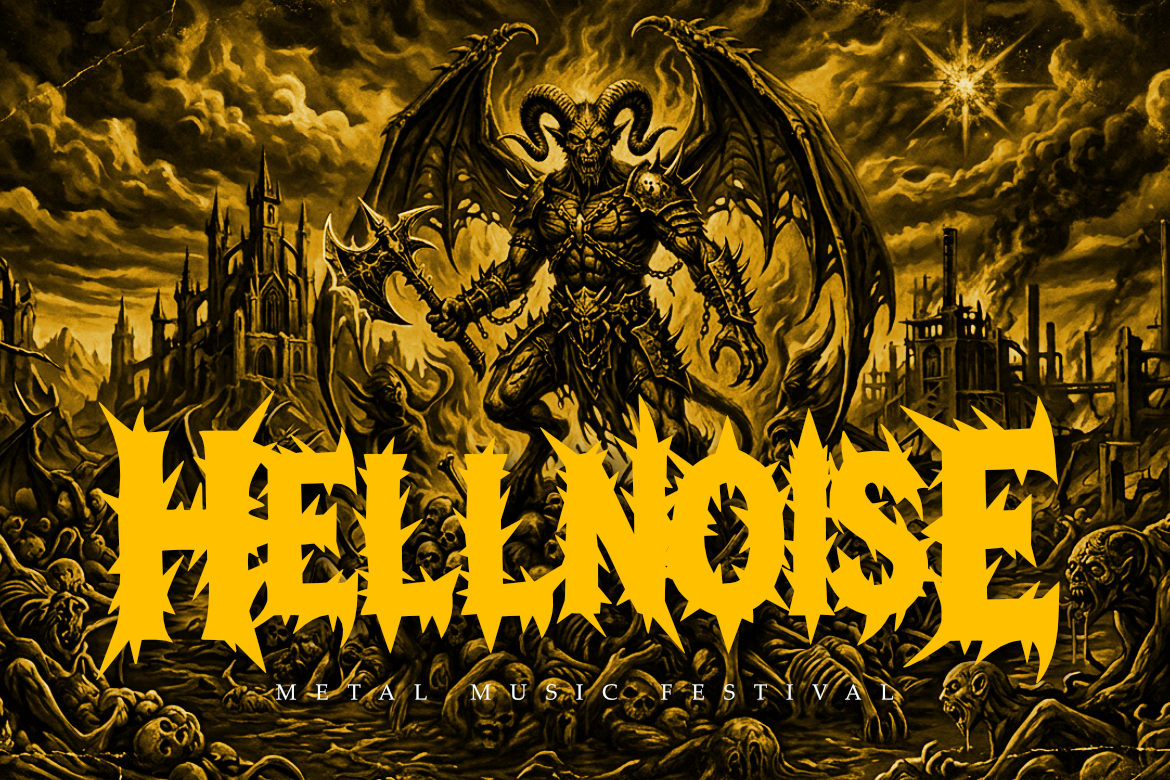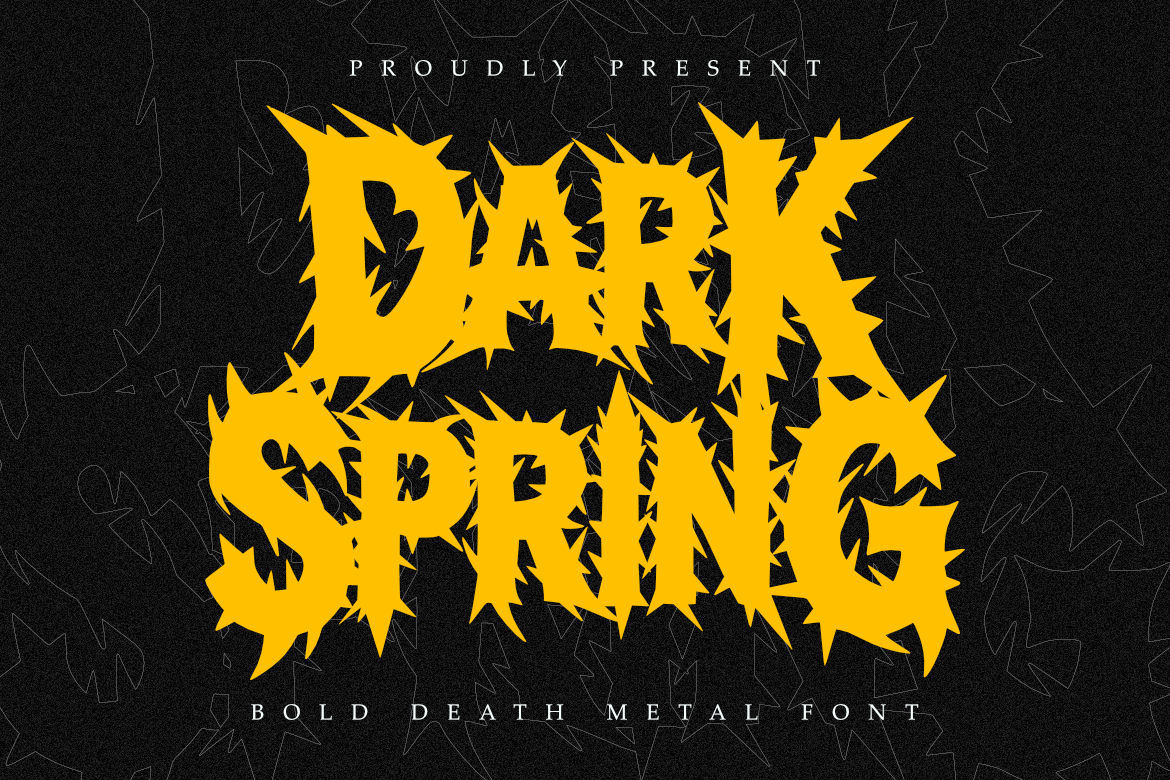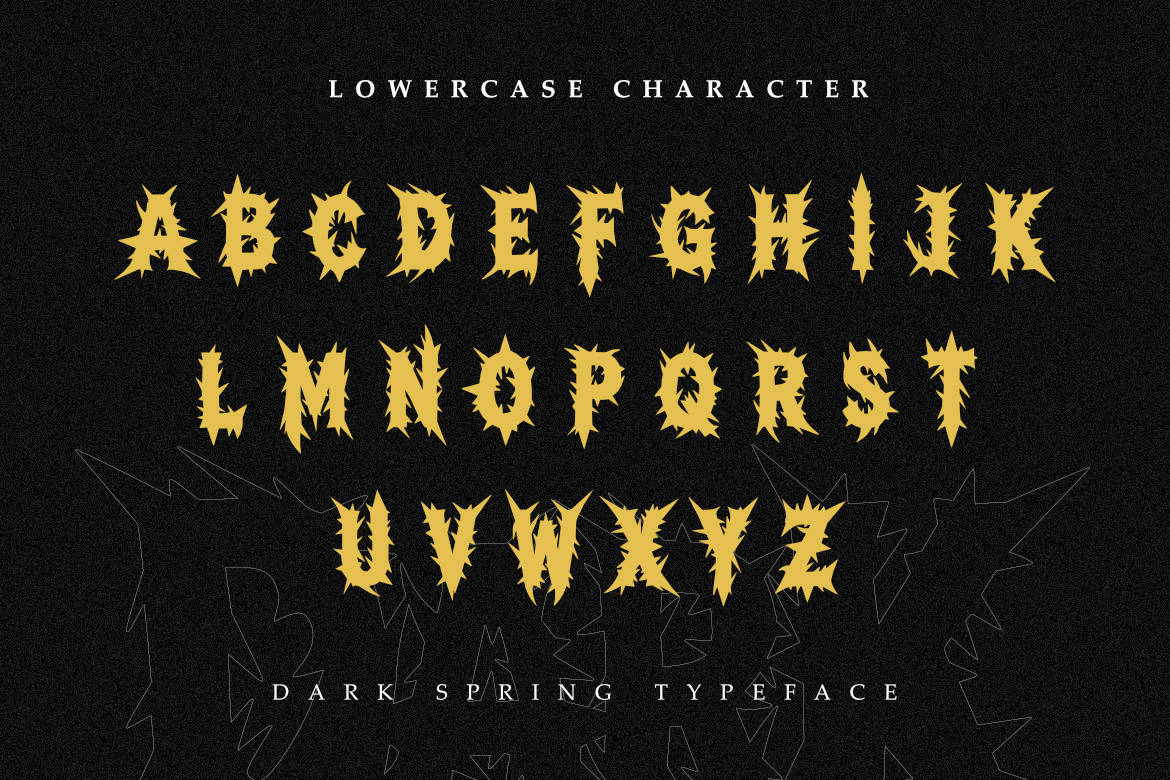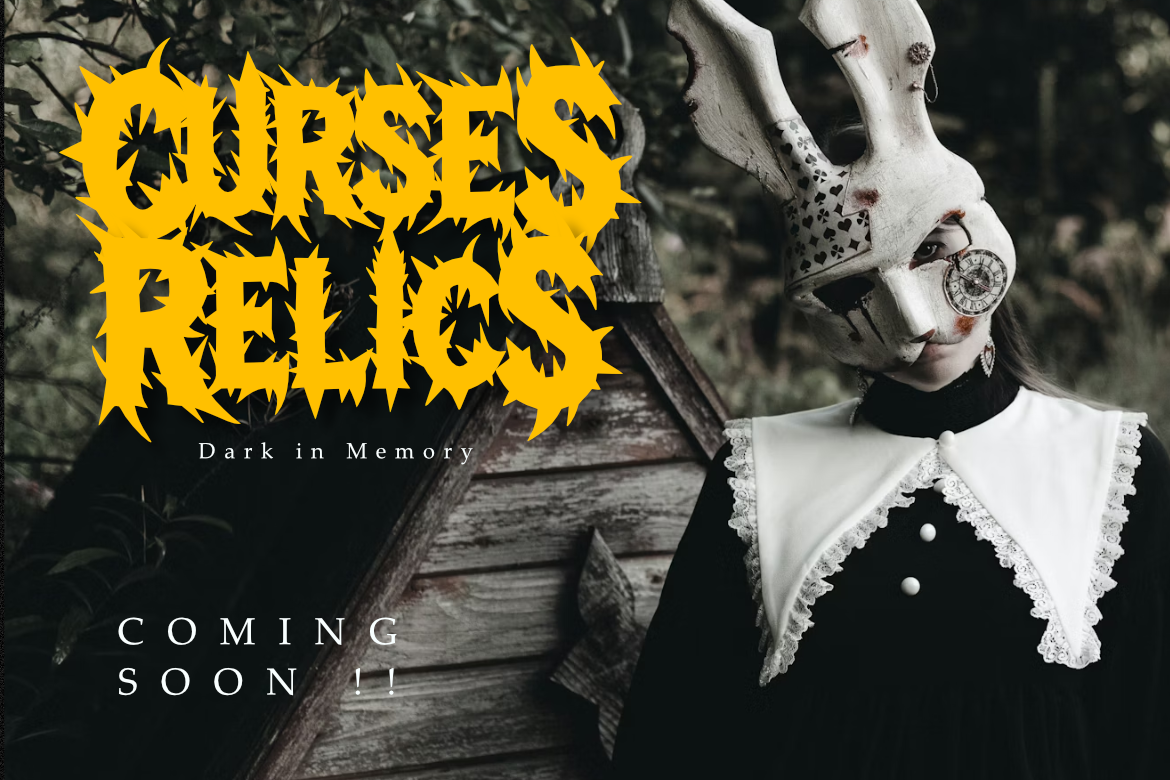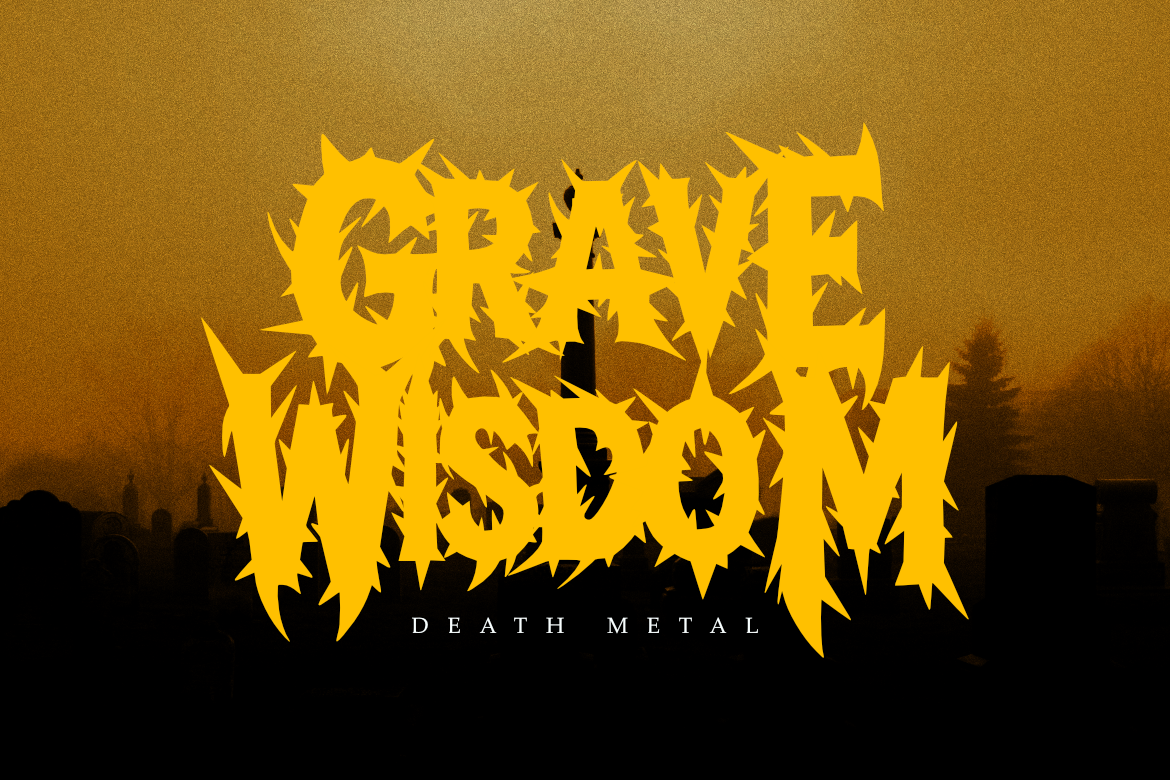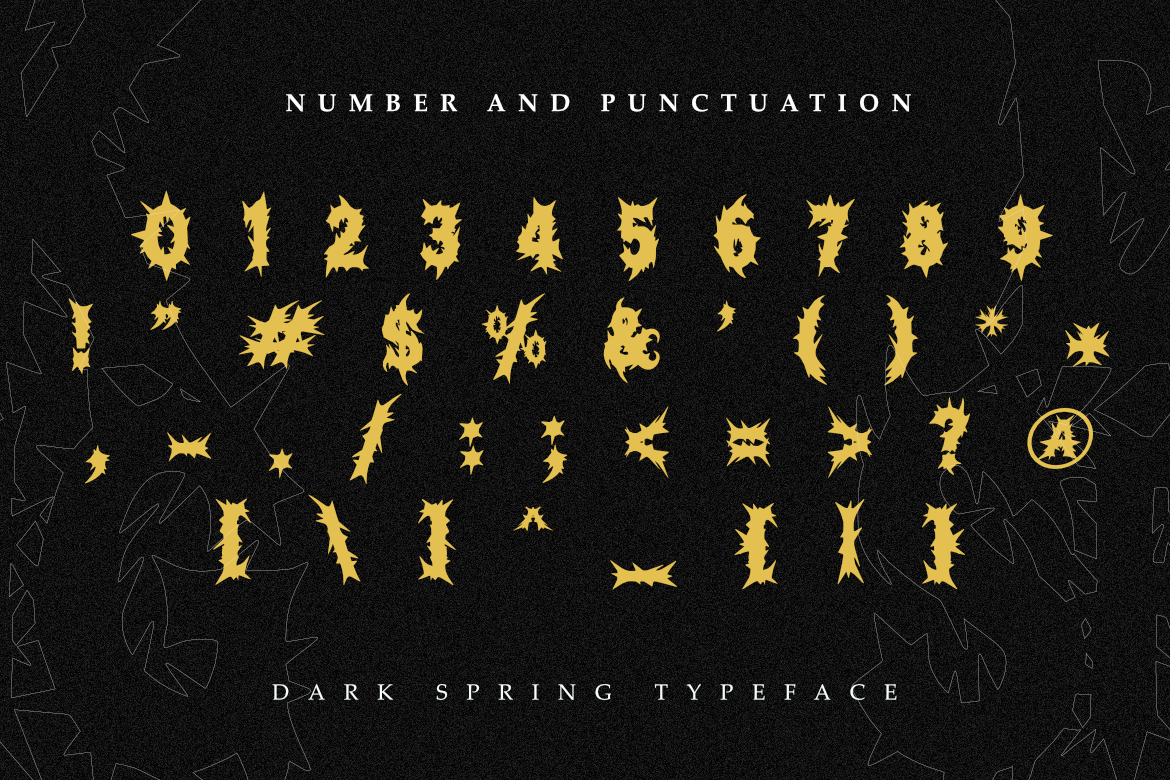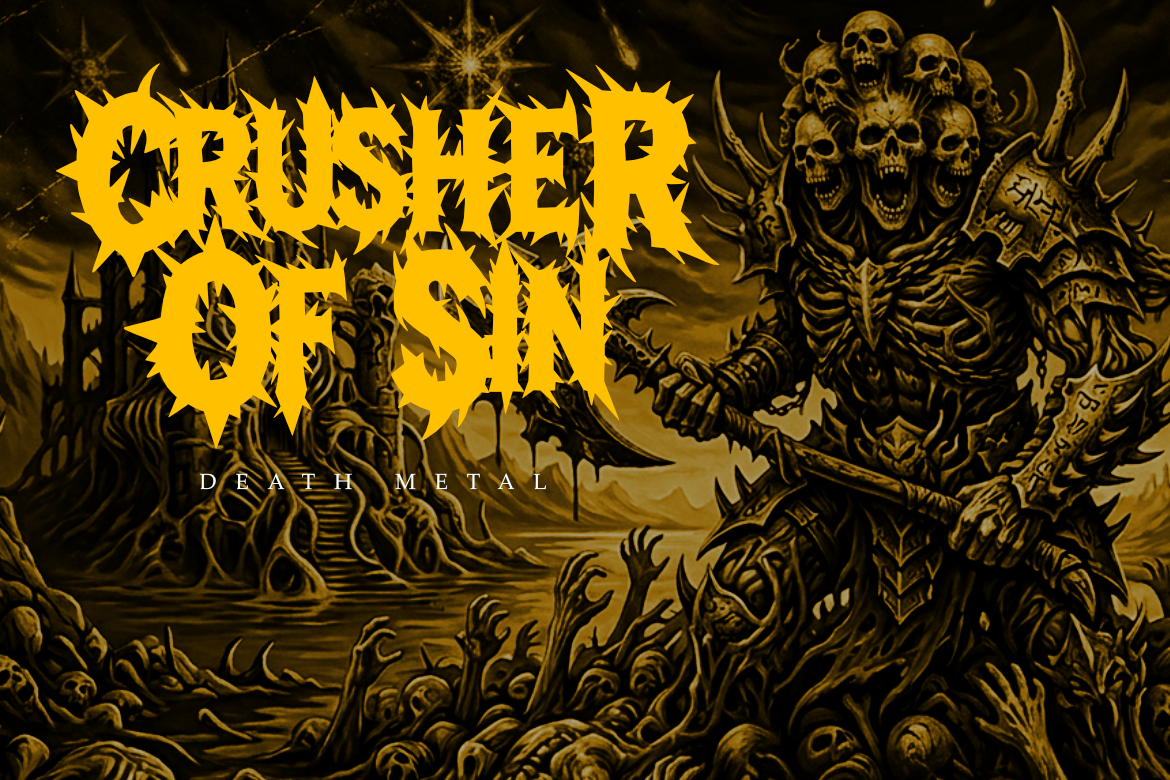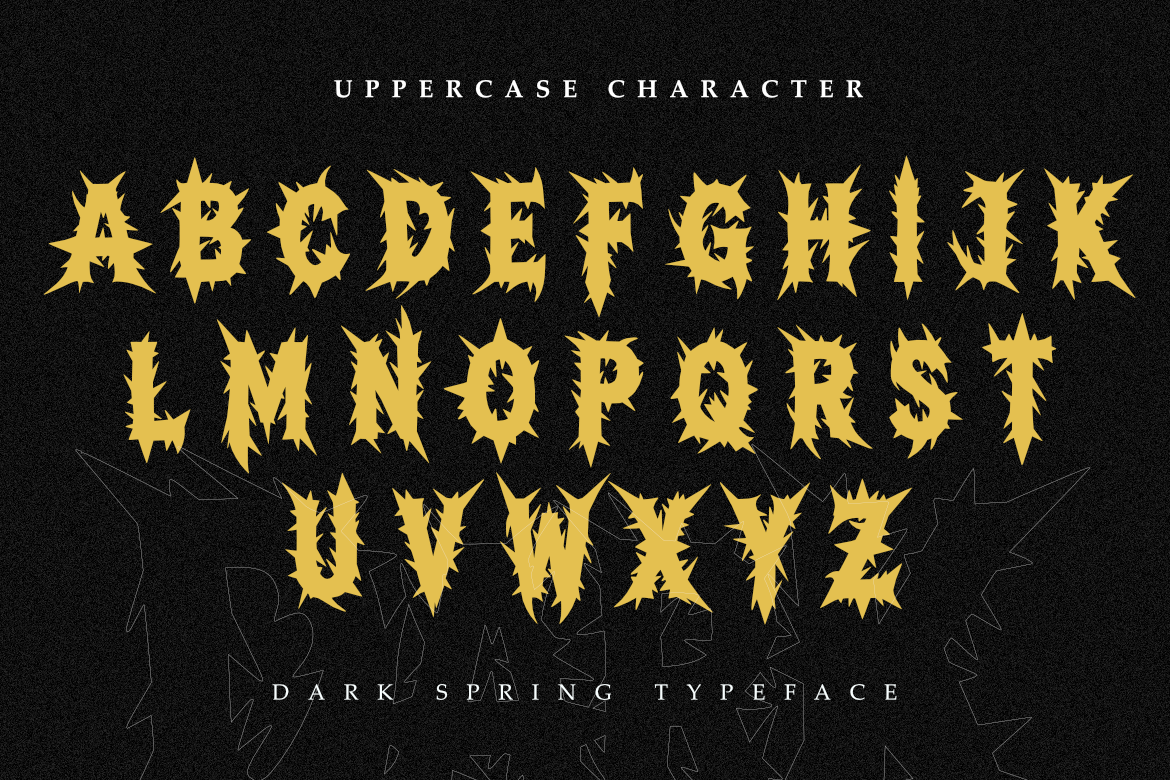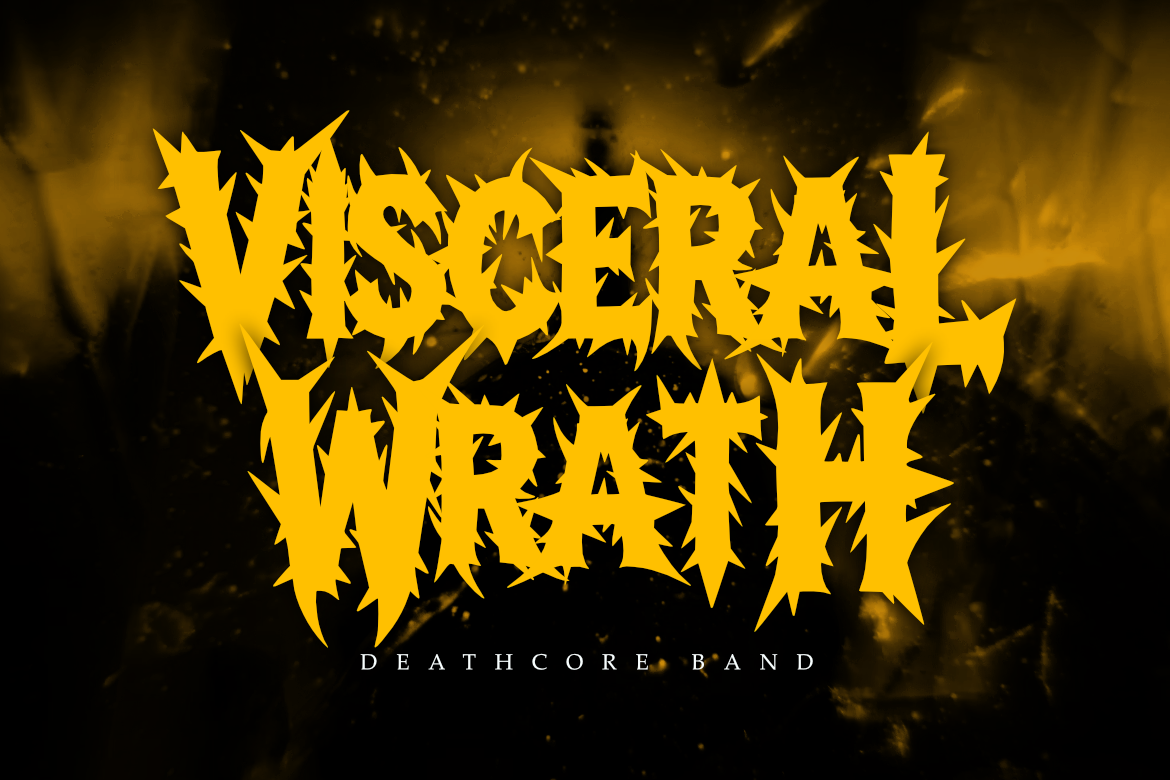
Dark Spring - Bold Death Metal Font
Dark Spring is a brutal professional font designed for sophisticated branding and high-end extreme design projects.
Its sharp and aggressive letterforms provide a contemporary yet timeless feel, striking a perfect balance between organic chaos and modern metal aesthetics. This font embodies the essence of modern minimalism while maintaining a sense of raw power and refinement, making it perfect for logos, corporate materials, and professional presentations within the music.
Whether you are crafting a corporate identity for an extreme label, designing sleek business cards for a tattoo studio, or working on editorial content, Dark Spring ensures your work exudes professionalism and style. Ideal for branding, business logos, websites, and more, its refined design effortlessly elevates your project.
Inspired by the vibrant energy of the underground scene, Dark Spring offers versatility and adaptability for various design applications, helping you communicate a polished and modern aesthetic that leaves a lasting impression.
- Bold, sharp, and aggressive death metal style.
- Intricate spiky letterforms with a professional finish.
- Perfect for high-end branding and logos.
- Designed for maximum visual impact in display use.